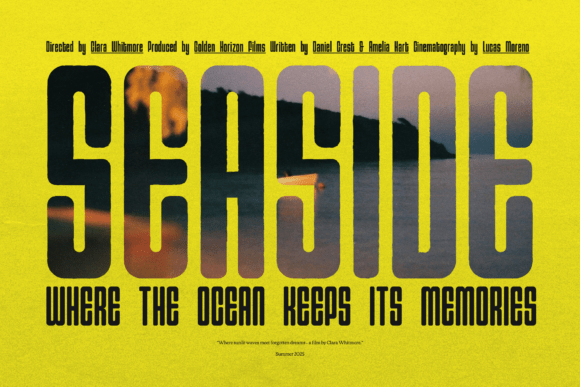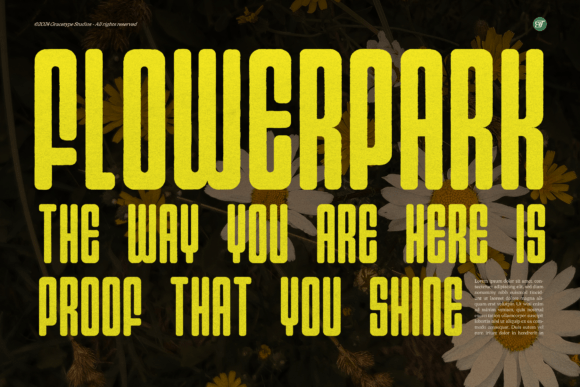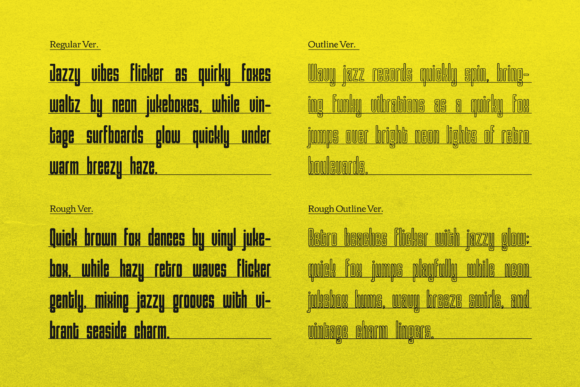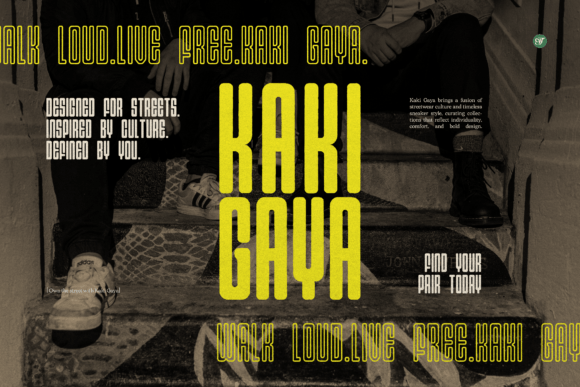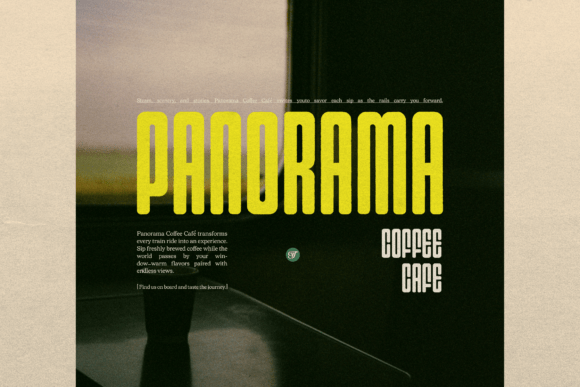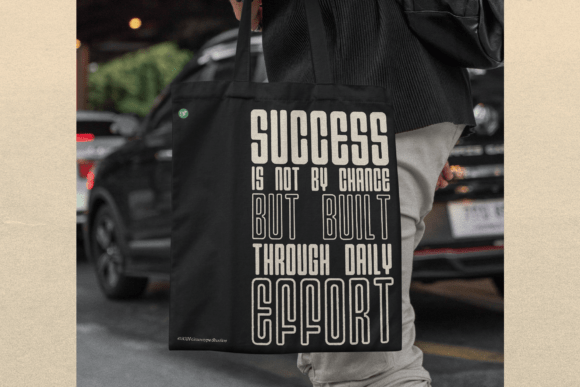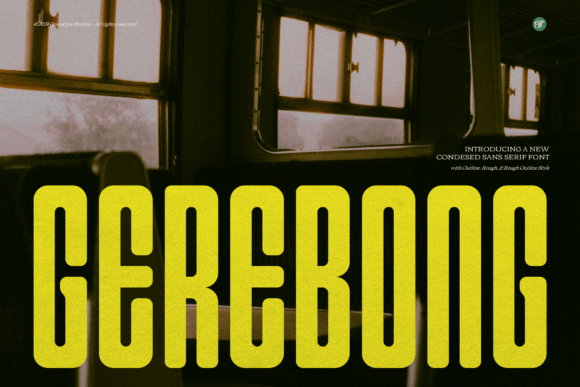
Introducing Gerebong Font: The Ultimate Condensed Sans Serif for Your Design Projects
Are you a designer or crafter looking for a versatile font to elevate your projects? Look no further than Gerebong Font, a stylish condensed sans serif that’s perfect for a wide range of applications. From logos and branding projects to homeware designs, product packaging, and more, Gerebong Font is the ideal choice for adding a touch of modern sophistication to your work.
What is Gerebong Font?
Gerebong Font is a carefully crafted condensed sans serif font that’s designed to be both elegant and highly legible. Its sleek lines and compact letterforms make it perfect for use in a variety of projects, from headlines and titles to body text and labels. Whether you’re working on a logo, brochure, or product packaging, Gerebong Font is sure to make a lasting impression.
What Projects is Gerebong Font Suitable For?
Gerebong Font is an incredibly versatile font that’s suitable for a wide range of projects, including:
- Logos and branding projects: Create a lasting impression with a custom logo or branding project that showcases your unique style.
- Homeware designs: Add a touch of modern sophistication to your homeware designs, from ceramics to textiles.
- Product packaging: Stand out on store shelves with eye-catching product packaging that features Gerebong Font.
- Mugs and drinkware: Add a personal touch to your mugs, water bottles, and other drinkware with Gerebong Font.
- Quotes and posters: Create inspiring quotes and posters that feature Gerebong Font’s sleek lines and modern style.
- Shopping bags: Elevate your brand’s shopping bags with a custom design that features Gerebong Font.
- T-shirts and apparel: Create stylish and modern apparel that showcases your unique style with Gerebong Font.
- Book covers and journals: Add a touch of sophistication to your book covers and journals with Gerebong Font.
- Name cards and invitation cards: Create beautiful and elegant name cards and invitation cards that feature Gerebong Font.
- Greeting cards and labels: Add a personal touch to your greeting cards and labels with Gerebong Font.
- Photography and watermark: Use Gerebong Font to add a professional touch to your photography and watermark.
- Special events: Create custom designs for special events, such as weddings, birthdays, and more, with Gerebong Font.
Why Choose Gerebong Font?
There are many reasons why Gerebong Font is the perfect choice for your design projects. Here are just a few:
- Modern and sophisticated: Gerebong Font features a sleek and modern design that’s perfect for adding a touch of sophistication to your projects.
- Highly legible: Despite its condensed design, Gerebong Font is highly legible, making it perfect for use in body text and other applications where readability is key.
- Versatile: Gerebong Font is suitable for a wide range of projects, from logos and branding projects to homeware designs and product packaging.
- Elegant: Gerebong Font features elegant lines and compact letterforms that are sure to add a touch of style to your projects.
How to Use Gerebong Font
Tips and Tricks for Getting the Most Out of Gerebong Font
Here are a few tips and tricks for getting the most out of Gerebong Font:
- Experiment with different font sizes: Gerebong Font looks great in a variety of font sizes, from large headlines to small body text.
- Pair with other fonts: Gerebong Font pairs well with a variety of other fonts, including serif and script fonts.
- Use in combination with images: Gerebong Font looks great in combination with images, particularly in applications such as posters and flyers.
- Try different font colors: Gerebong Font looks great in a variety of font colors, from bold and bright to subtle and muted.
Gerebong Font is a versatile and stylish condensed sans serif font that’s perfect for a wide range of design projects. Its modern and sophisticated design, highly legible letterforms, and elegant lines make it the ideal choice for adding a touch of style to your work. Whether you’re a designer or crafter, Gerebong Font is sure to become a staple in your design toolkit.